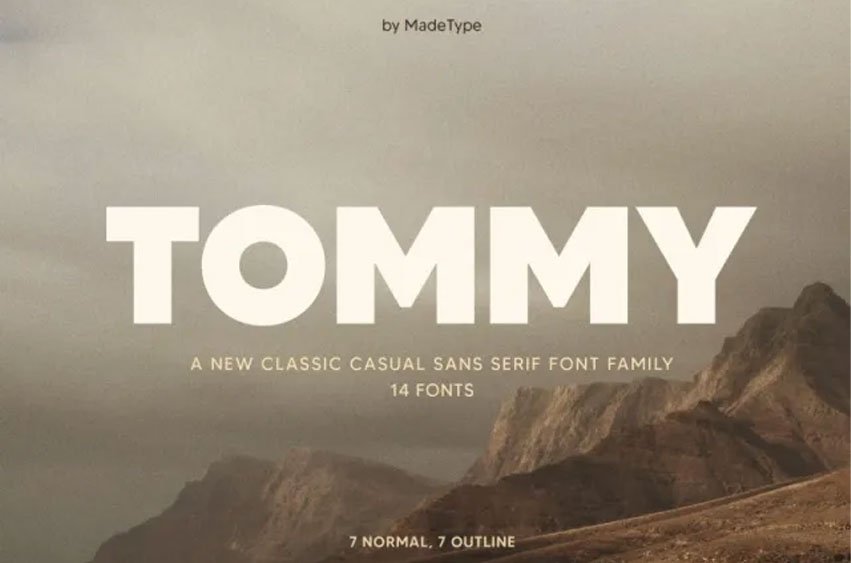
Tommy Font
Tommy Font is a new classic casual sans serif font family. The TOMMY font family includes: 7 normal and 7 outline style.
MADE TOMMY will perfect for many project: fashion, magazines, logo, branding, photography, invitations, wedding invitation, quotes, blog header, poster, advertisements, postcard, book, websites, etc.